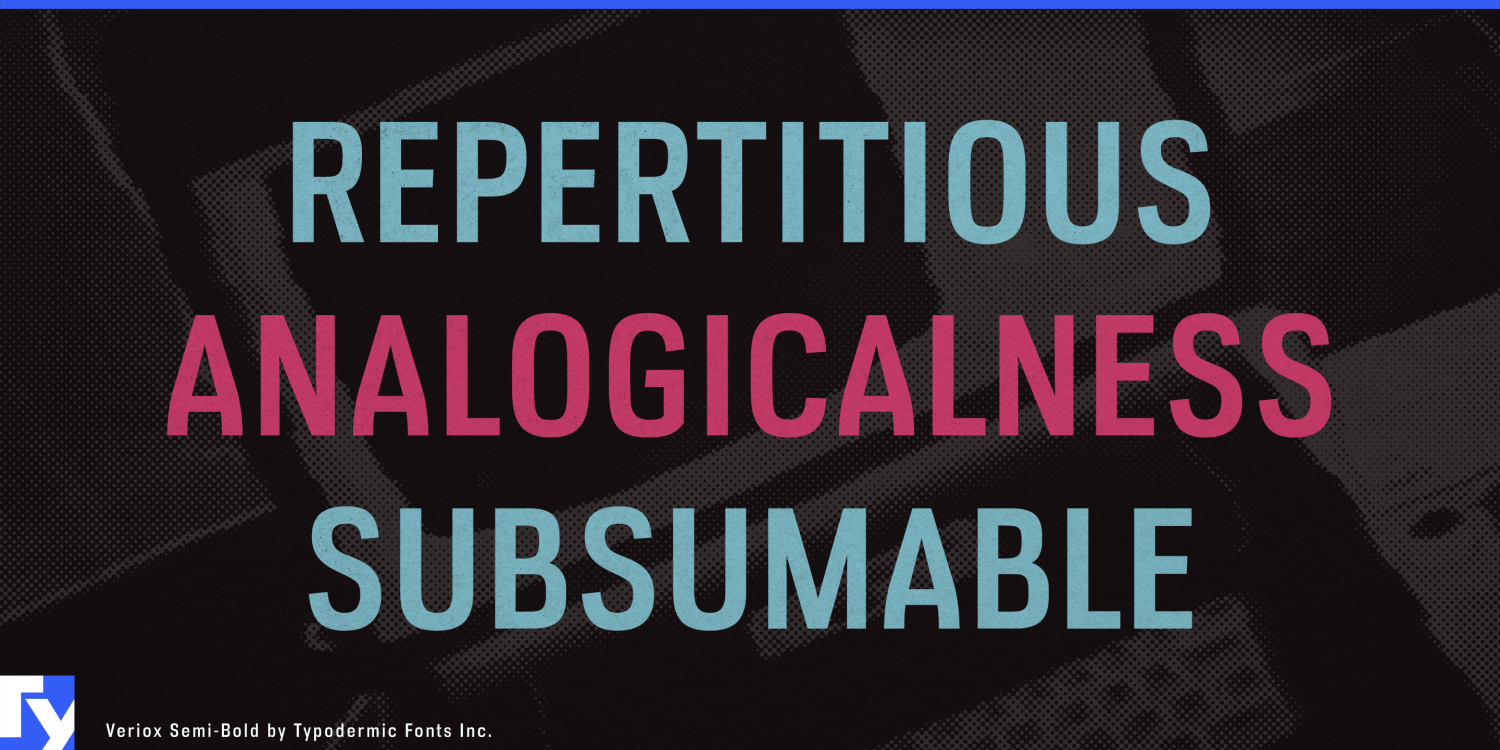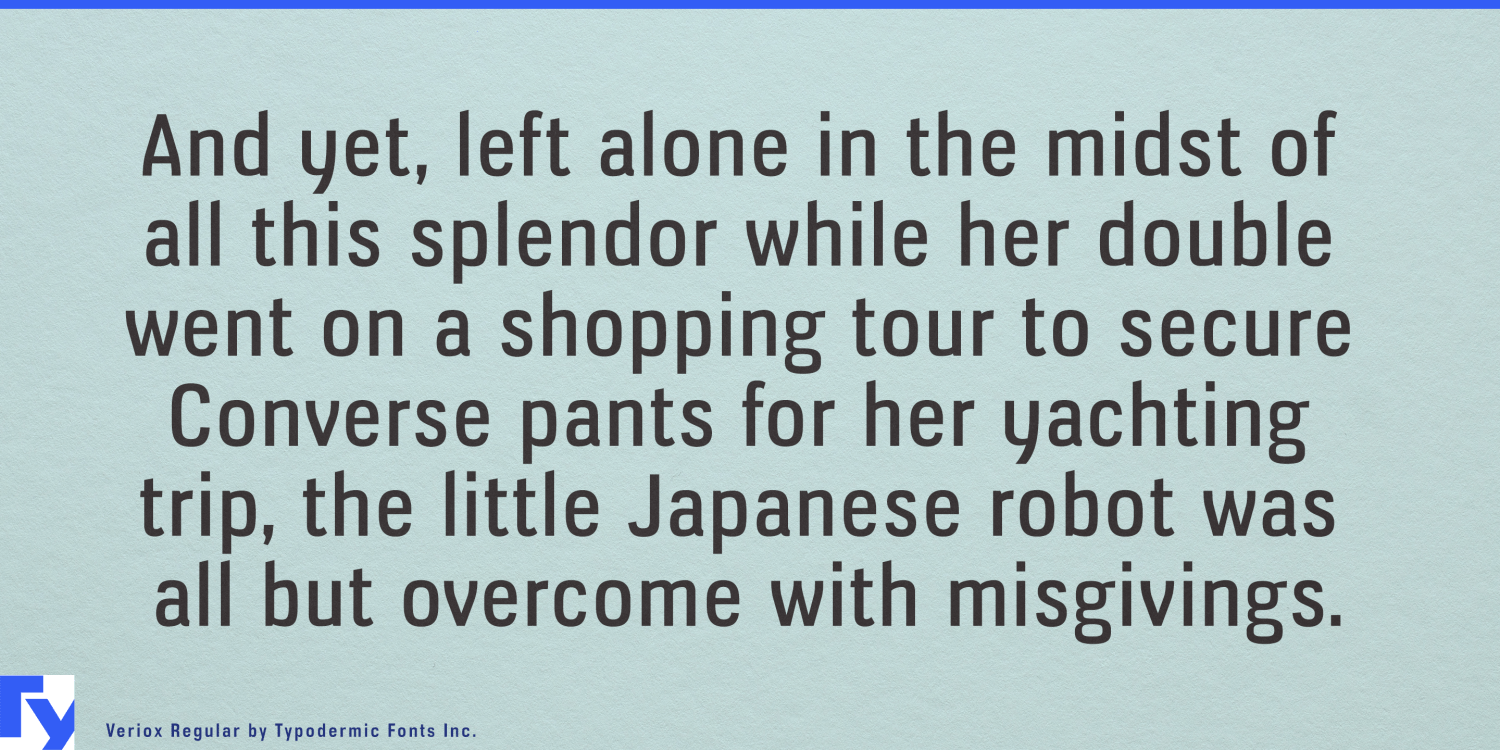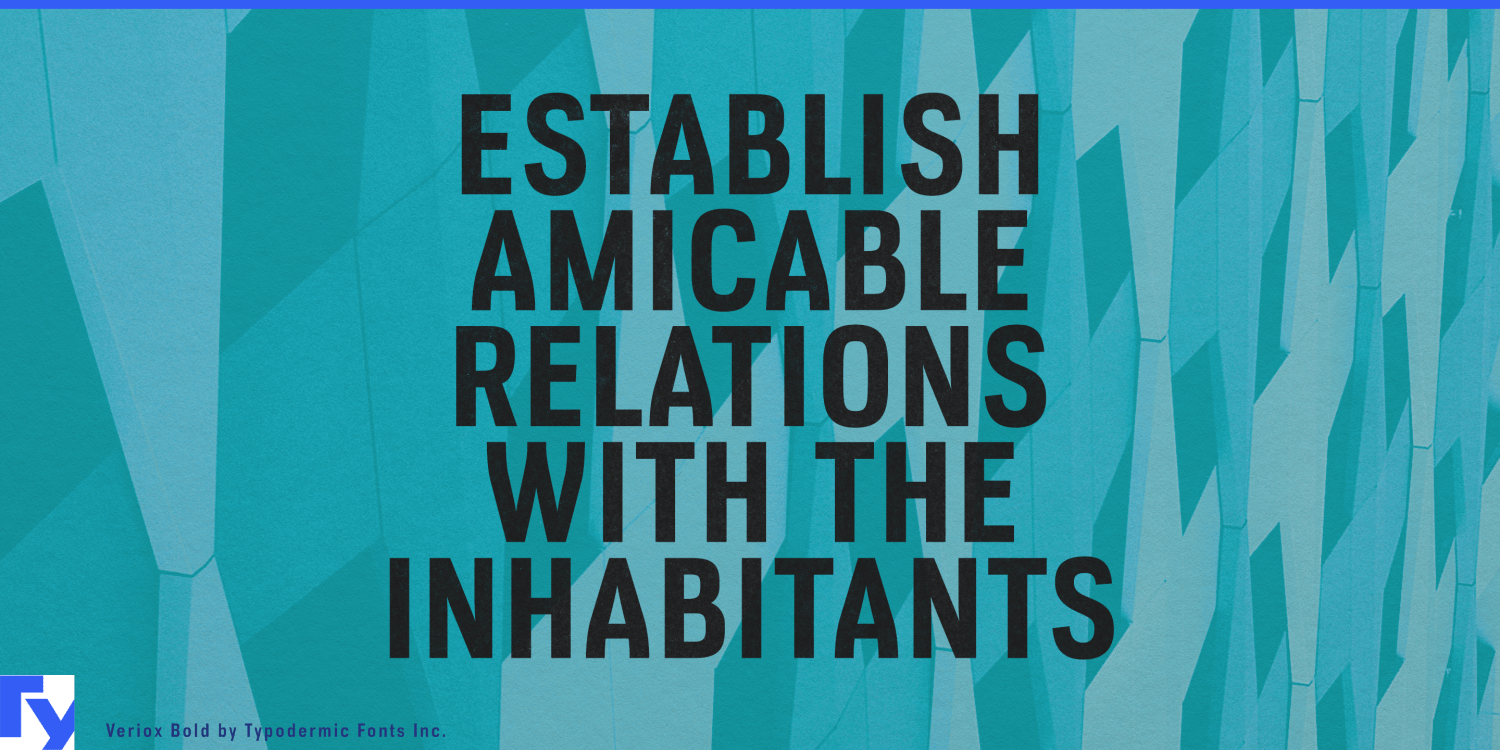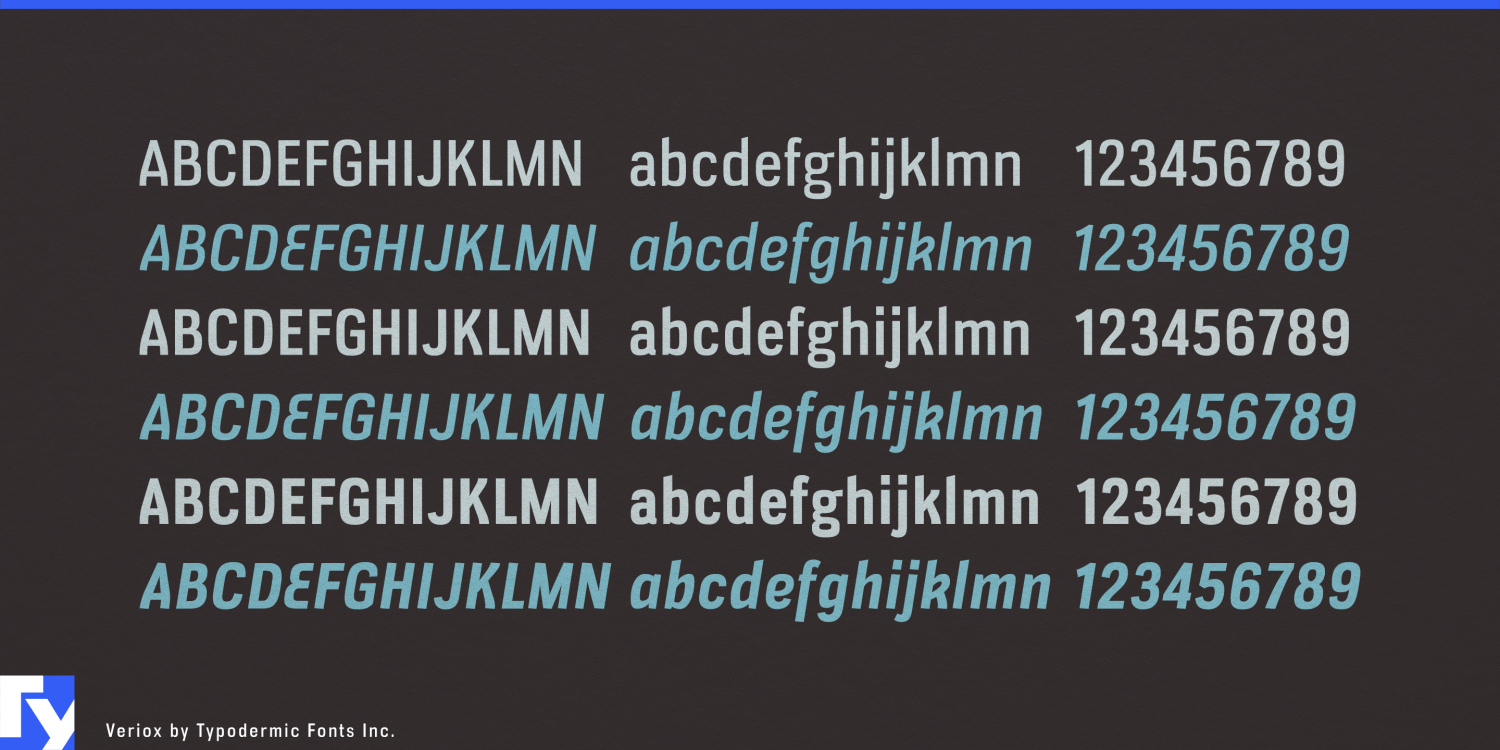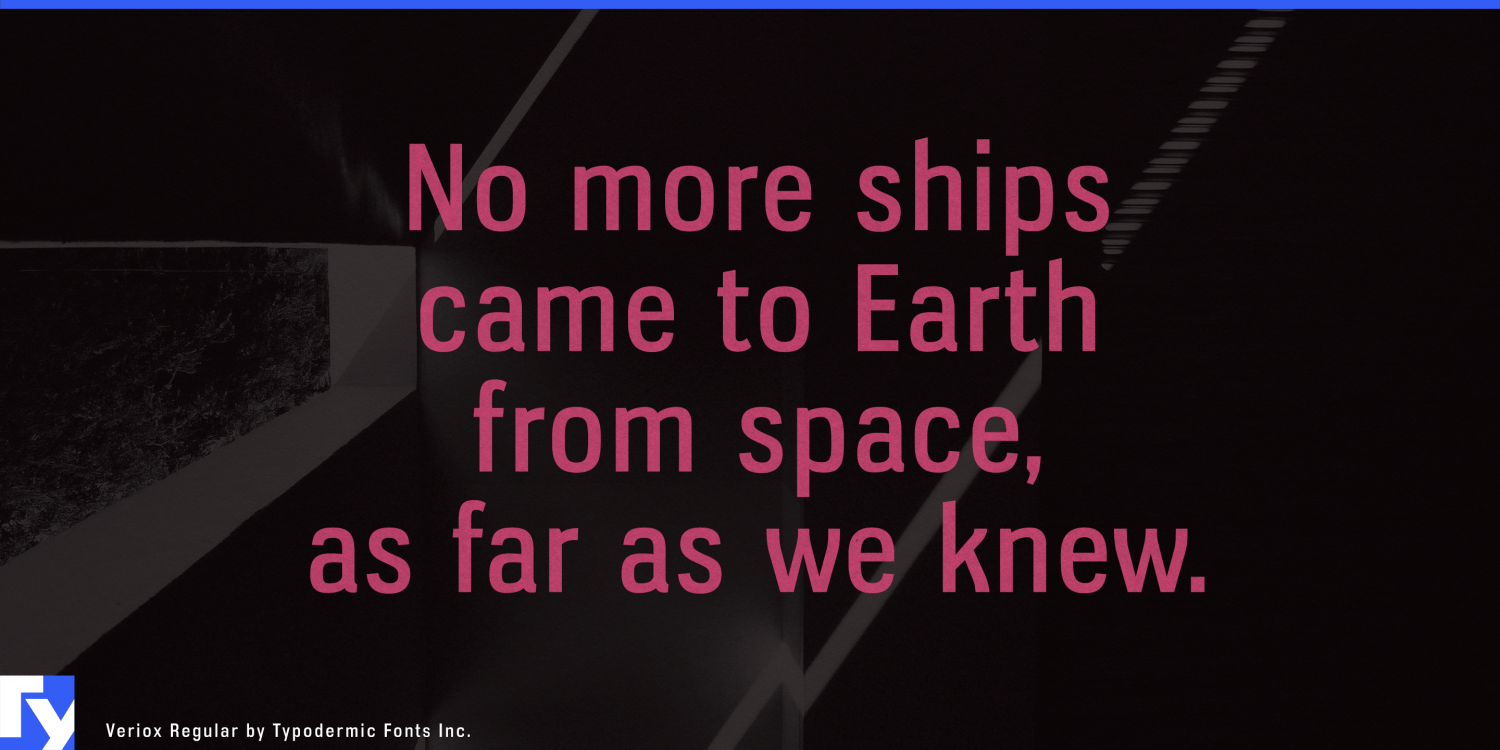
About Veriox
Step into the void with Veriox, a typeface forged in the crucible of space exploration. This is a visual representation of humanity’s relentless drive to push beyond our terrestrial limits, capturing the essence of scientific rigor and the raw challenges…